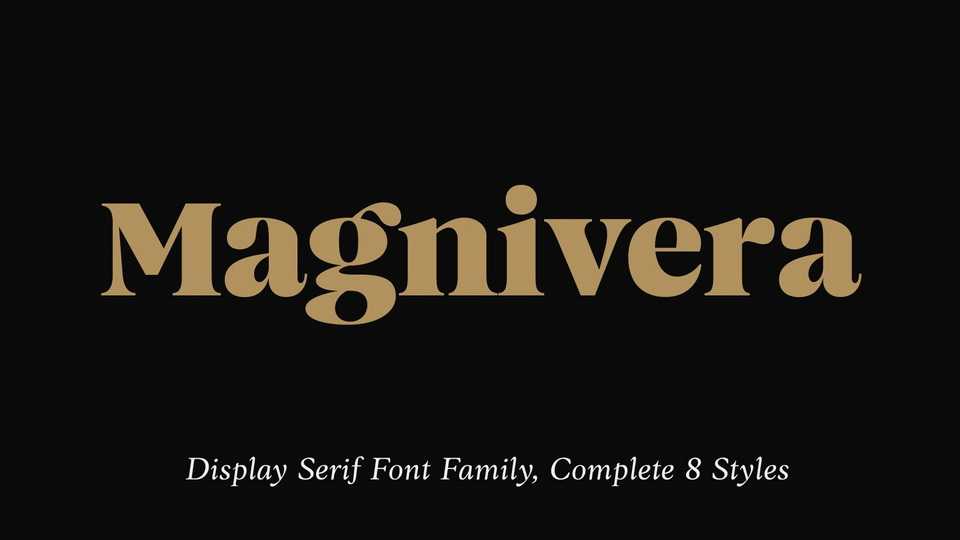
Download Magnivera font, a display serif typeface inspired by old-style with a high contrast letterforms. The characteristic of theMagnivera is flamboyant and fit for fashion theme.